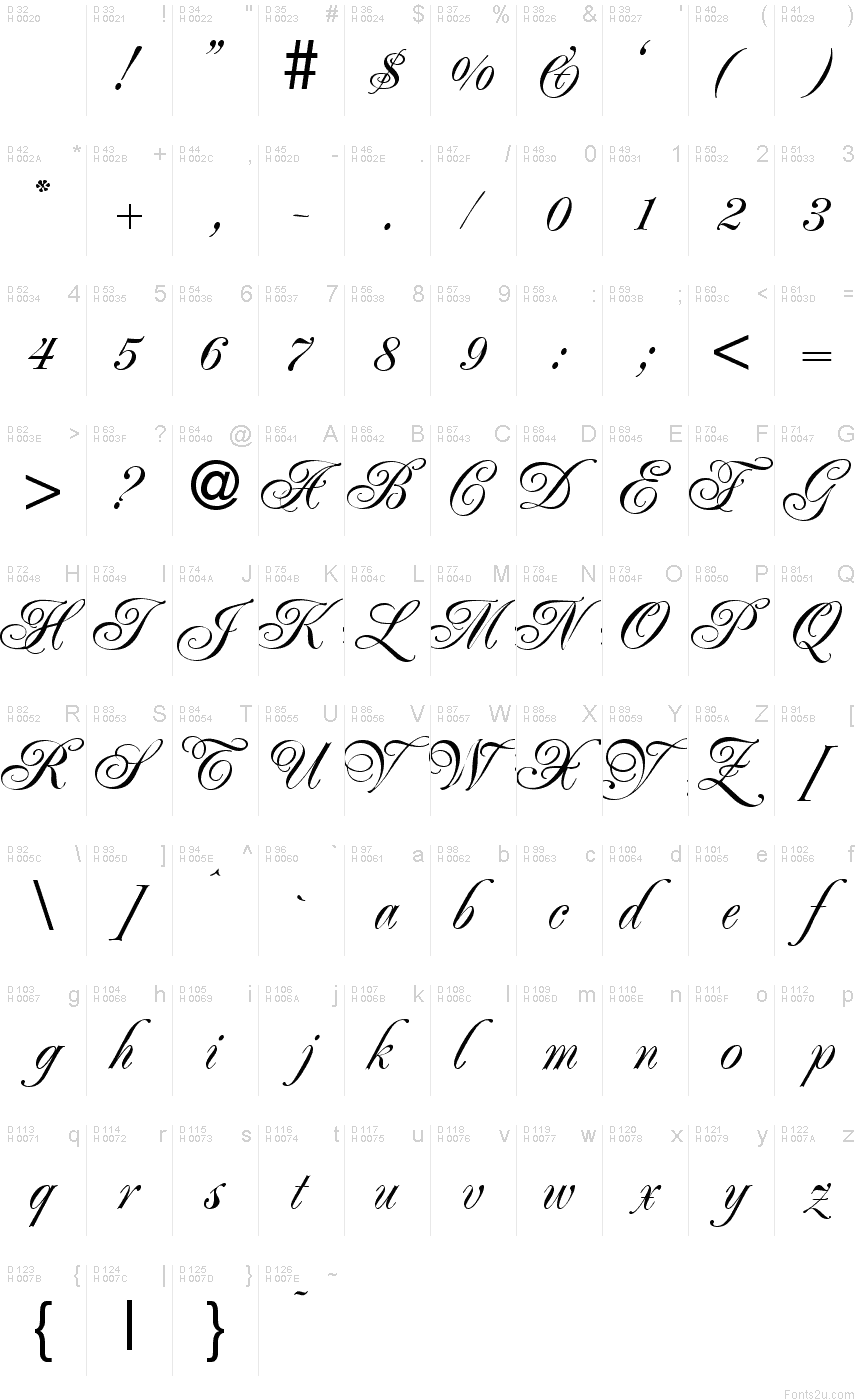
Renaissance-Regular
Renaissance is a free calligraphic script font with a formal old-world mood and long, looping strokes that keep the letters moving. The high contrast between thick and hairline marks, plus those sweeping entry and exit curves, gives it the poised feel of engraved invitations rather than casual handwriting.
It suits wedding stationery, perfume or jewelry branding, restaurant menus, book covers, and elegant title cards where a free font can carry the whole headline on its own. Use it for logos, monograms, short cover lines, or opening initials when you want that flourish-heavy rhythm, because the letters connect in a way that feels ceremonial and a little theatrical.